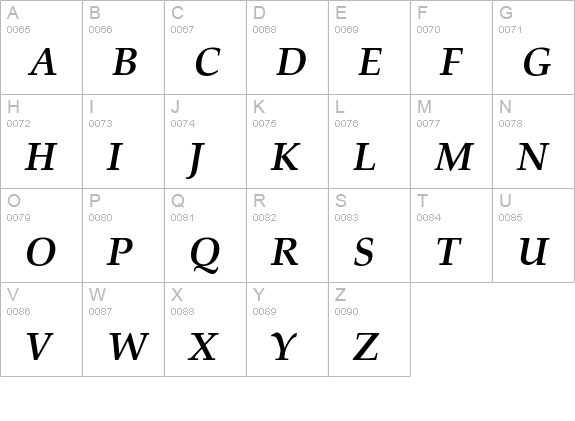
Palladio-BoldItalic Font Details
The Palladio-BoldItalic font is a striking and elegant typeface that exudes a sense of sophistication and style. Its bold and italic design adds a touch of flair to any text, making it perfect for headings, titles, and other eye-catching elements. With its clean lines and classic proportions, Palladio-BoldItalic offers a timeless appeal that is sure to make a statement. What's even better is that this beautiful font is available for free download at FontsMarket.com. Whether you're a designer looking to elevate your projects or a writer wanting to add a touch of elegance to your words, Palladio-BoldItalic is a versatile choice that won't disappoint. Download it today and see how it can enhance your work with its charm and grace.